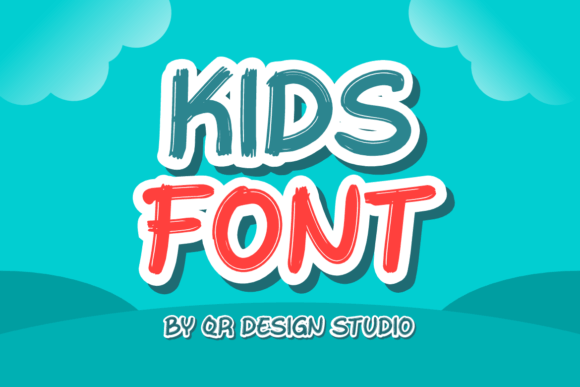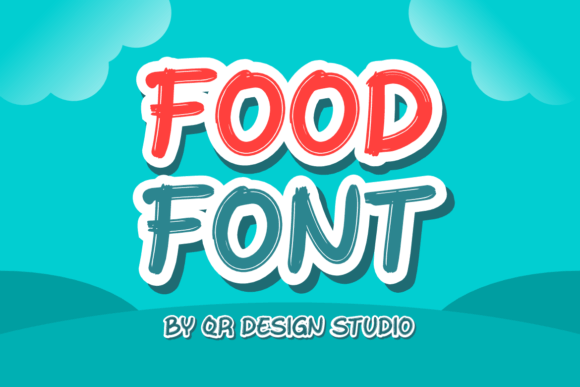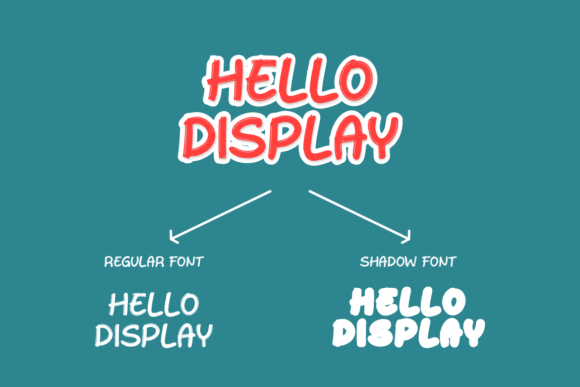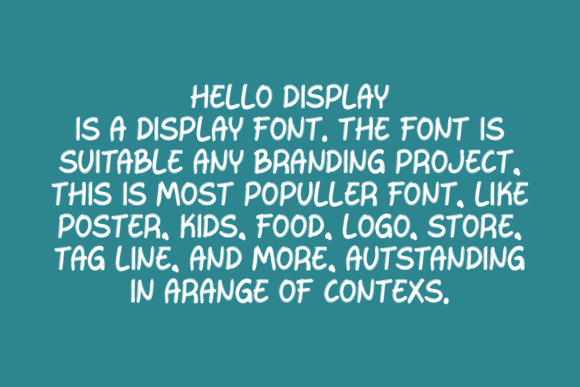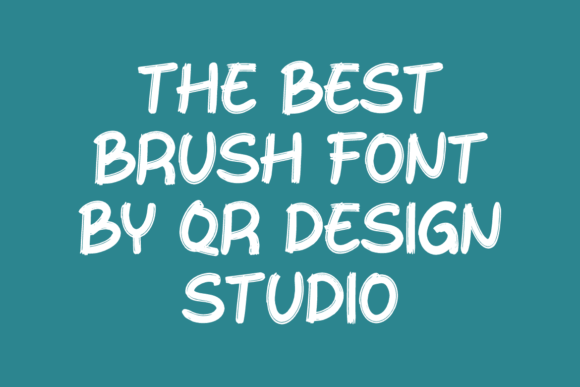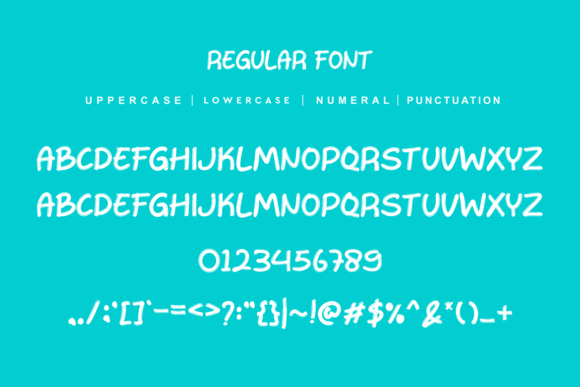
Hello Display Font: Elevate Your Designs with a Bold and Authentic Brush Font
In the world of design, fonts play a crucial role in conveying the tone and personality of a brand. When it comes to creating visually stunning and attention-grabbing designs, the right font can make all the difference. This is where Hello Display – Brush Font comes in – a bold and authentic display font that’s perfect for a wide range of design projects. In this article, we’ll explore the features and benefits of Hello Display Font and how it can elevate your designs to the next level.
What is Hello Display Font?
Hello Display – Brush Font is a carefully crafted display font that’s designed to make a statement. With its bold and authentic brush strokes, this font is perfect for designers who want to add a touch of personality to their designs. Whether you’re working on a logo, poster, or social media graphics, Hello Display Font is sure to grab attention and leave a lasting impression.
Key Features of Hello Display Font
- Bold and Authentic: Hello Display Font features bold and authentic brush strokes that give your designs a unique and handcrafted feel.
- Versatile: This font is suitable for a wide range of design projects, including logos, posters, social media graphics, and more.
- Easy to Read: Despite its bold and decorative nature, Hello Display Font is easy to read and understand, making it perfect for headlines and titles.
- High-Quality: Hello Display Font is a high-quality font that’s designed to deliver exceptional results in both digital and print formats.
Use Cases for Hello Display Font
Hello Display Font is a versatile font that can be used in a variety of design projects. Here are some use cases where this font truly shines:
- Logo Design: Create a bold and memorable logo that stands out from the crowd with Hello Display Font.
- Poster Design: Use Hello Display Font to create eye-catching posters that grab attention and convey your message effectively.
- Kids’ Designs: Hello Display Font is perfect for kids’ designs, including children’s books, educational materials, and more.
- Summer and Food Designs: Add a touch of warmth and personality to your summer and food designs with Hello Display Font.
Benefits of Using Hello Display Font
So, why should you choose Hello Display Font for your design projects? Here are some benefits that set this font apart:
- Unique and Authentic: Hello Display Font offers a unique and authentic look that’s sure to set your designs apart from the crowd.
Hello Display – Brush Font is a bold and authentic display font that’s perfect for designers who want to elevate their designs to the next level. With its versatile nature, ease of use, and high-quality design, this font is sure to become a staple in your design toolkit. Whether you’re working on a logo, poster, or social media graphics, Hello Display Font is the perfect choice for creating visually stunning and attention-grabbing designs.